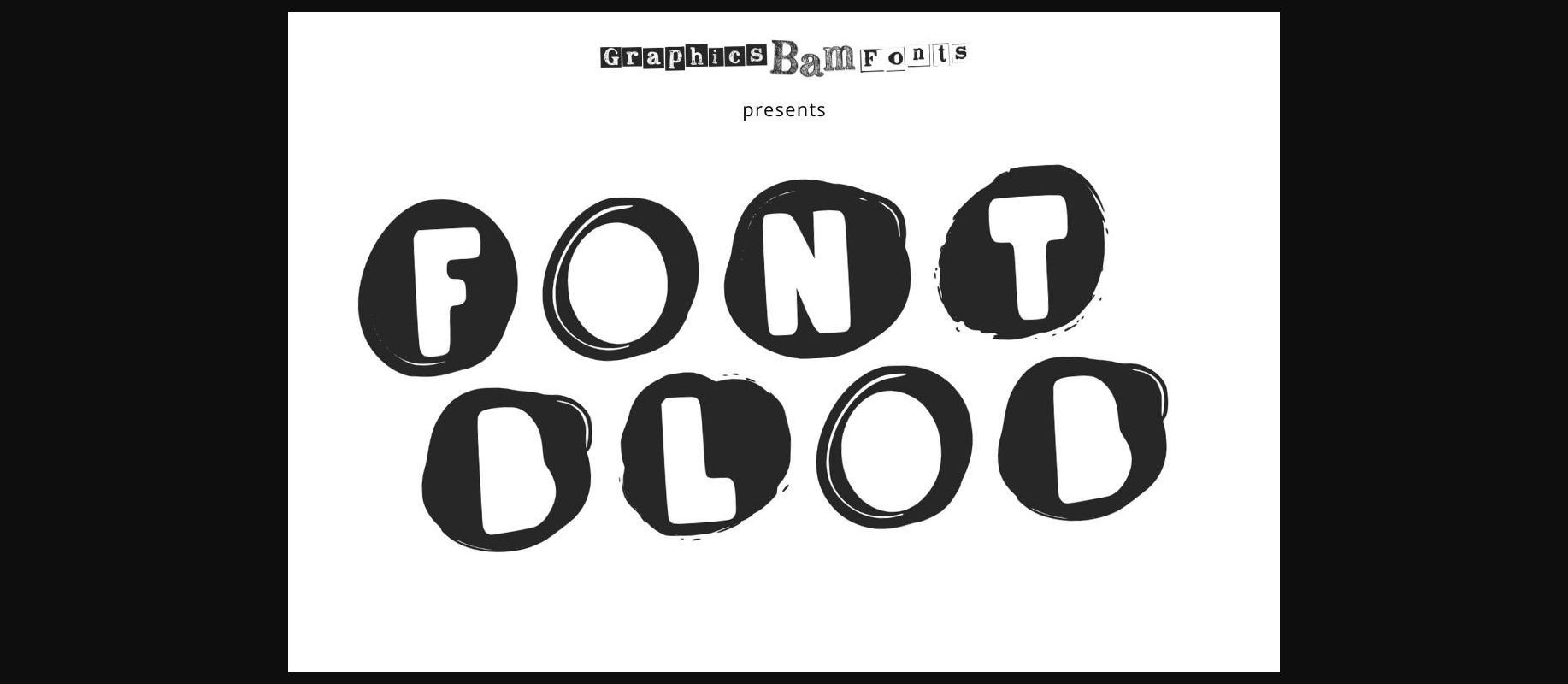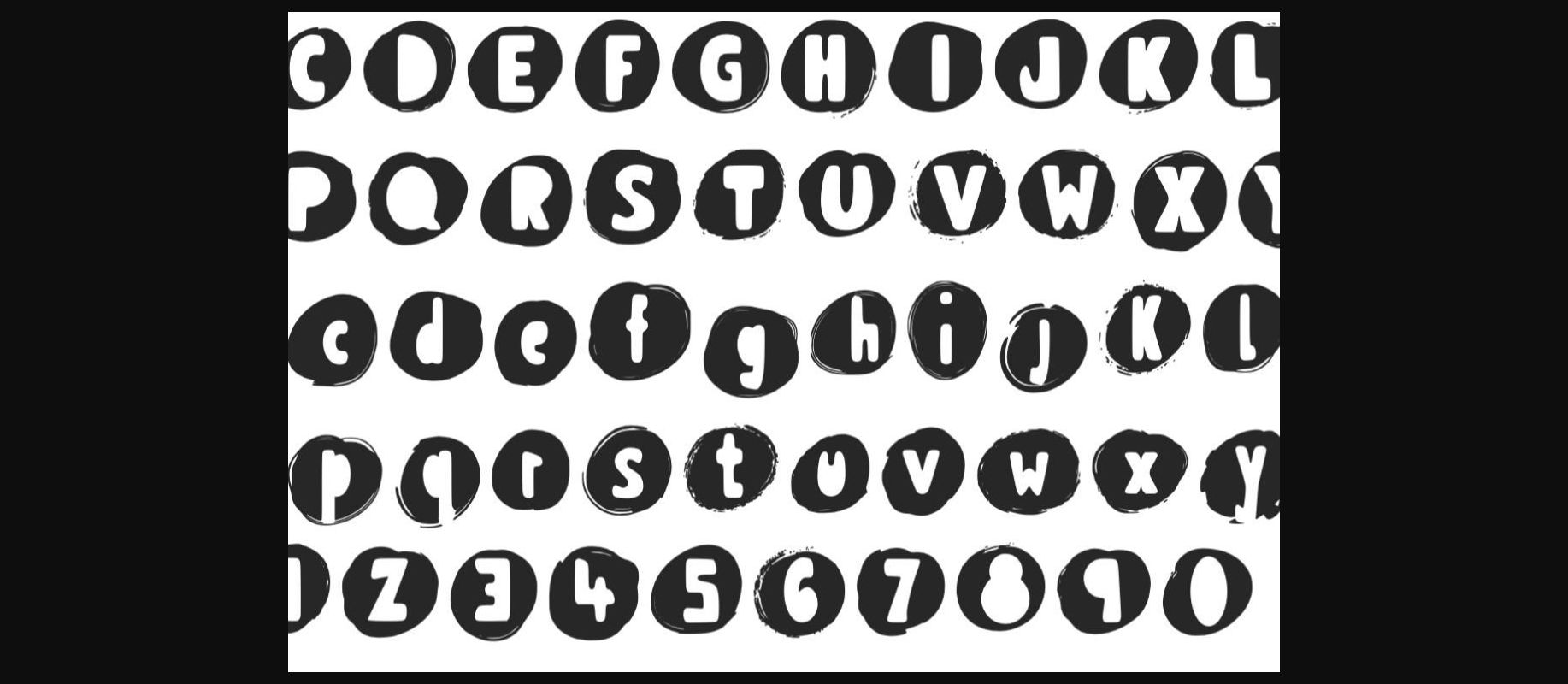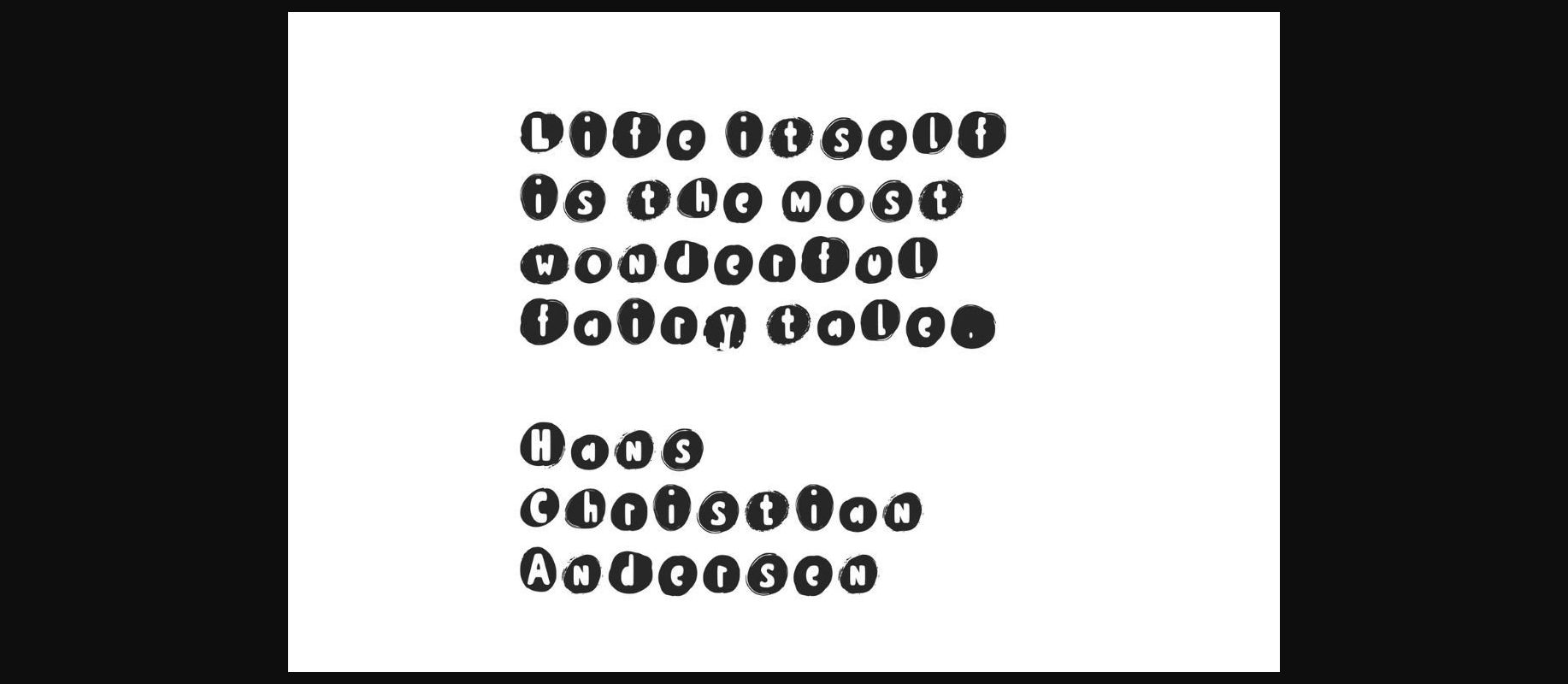
HomeDecorative FontsBlob Font Decorative Fonts Blob Font FacebookXPinterestWhatsApp 1 of 5 ... Blob Font Poster 2... Blob Font Poster 3... Blob Font Poster 4... Blob Font Poster 5... About Blob Font Blob is a playful yet bold child-like decorative font perfect to spell out anything that needs a bit of splat! Each glyph features a friendly and joyful style. It is great for schools, home teaching, or craft projects. DOWNLOAD NOW People also explored Stereo Star Font Virtoprov Font Angela Heart Font Mbuhya Font Haunted Font Daphne Flower Font Shemekia Font Olisia Font Curly Cursive Font 449 0 TagsBlobBlob Font Previous articleRough Bones FontNext articleAlloween Font LEAVE A REPLY Cancel reply Comment: Please enter your comment! Name:* Please enter your name here Email:* You have entered an incorrect email address! Please enter your email address here Website: Save my name, email, and website in this browser for the next time I comment. Personal Use Free Avatarock Personal Use Free Read more about this font Sabina Illusion Personal Use Free Read more about this font Rasiday Personal Use Free Read more about this font Densmore Personal Use Free Read more about this font BLOG How to Install and Use Fonts on Windows, macOS, and Web Projects How to Install and Use Fonts on Windows, macOS, and Web Projects Fonts are a crucial part of design and branding. Whether you’re designing a... Using Fonts in Digital Marketing: Tips to Strengthen Your Brand Identity Top 7 Google Fonts Alternatives for Faster and Privacy-Friendly Web Design (2025) Fonts That Capture the Spirit of New York City